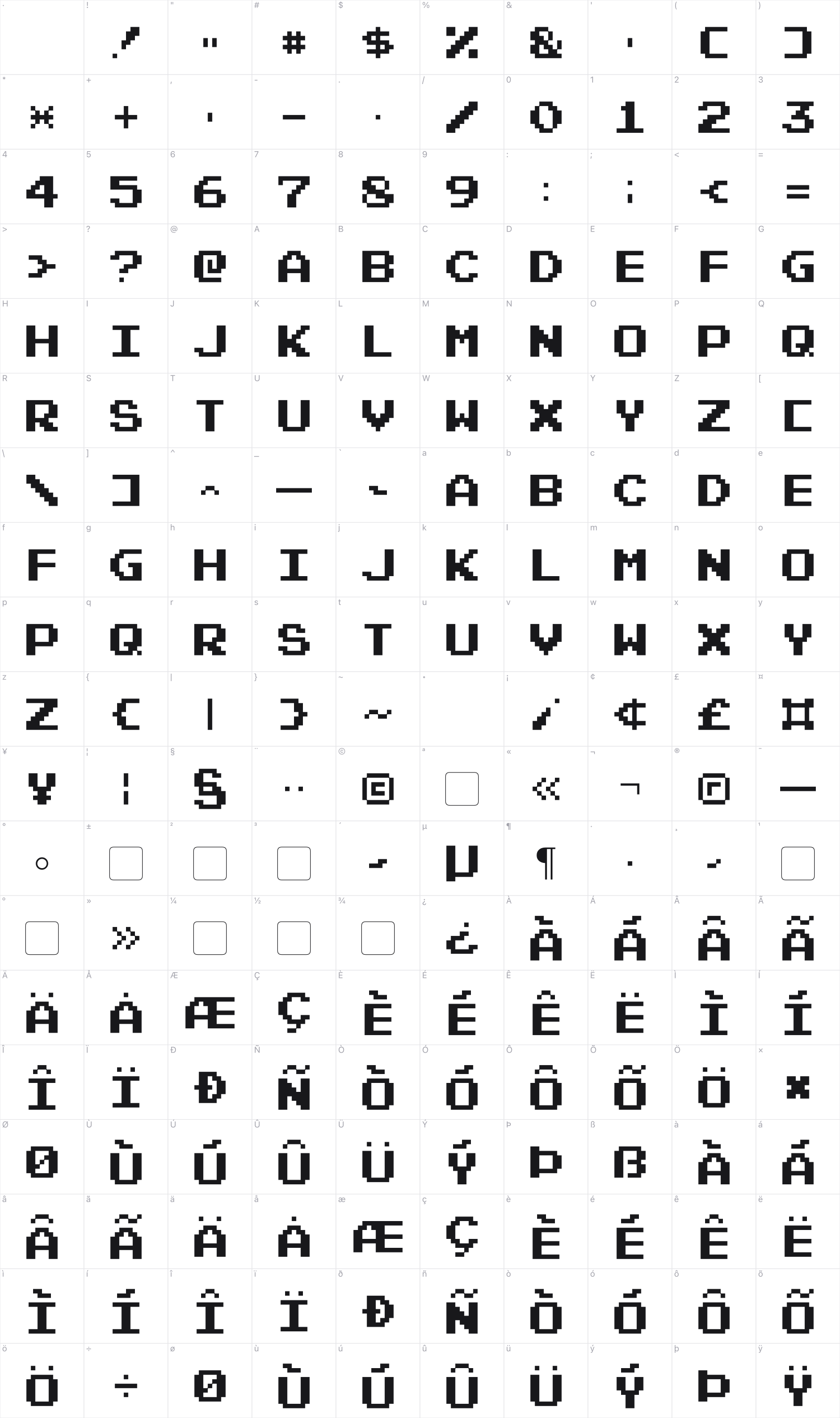
Pixel Emulator
Pixel Emulator is a bold, blocky bitmap font from Pixel Sagas that nails the look of classic 8-bit console text. The uppercase letterforms are chunky and unapologetically pixelated, built for headlines, game interfaces, and retro-themed projects where you want that authentic low-resolution feel. It hits hardest at larger sizes where the pixel grid becomes part of the visual appeal rather than a limitation.